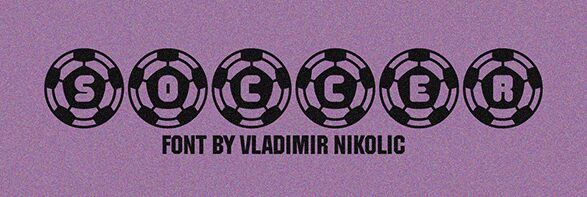
Soccer Extravagant Regular
Soccer Extravagant font by Vladimir Nikolic is a free bold display typeface with energy. Its uniformity connects modern geometric elements in harmony to form sporty and decorative letter shapes. The graphics have all the power needed for a neat bold design.
Soccer Extravagant font is plainly suitable when designing for football purposes such as soccer uniform designs, club branding, team logos, advertising billboards, event flyers, sports magazines and news cover pages. But the excitement of this typeface can also be expressed within graphic and web design projects for game apps and more.